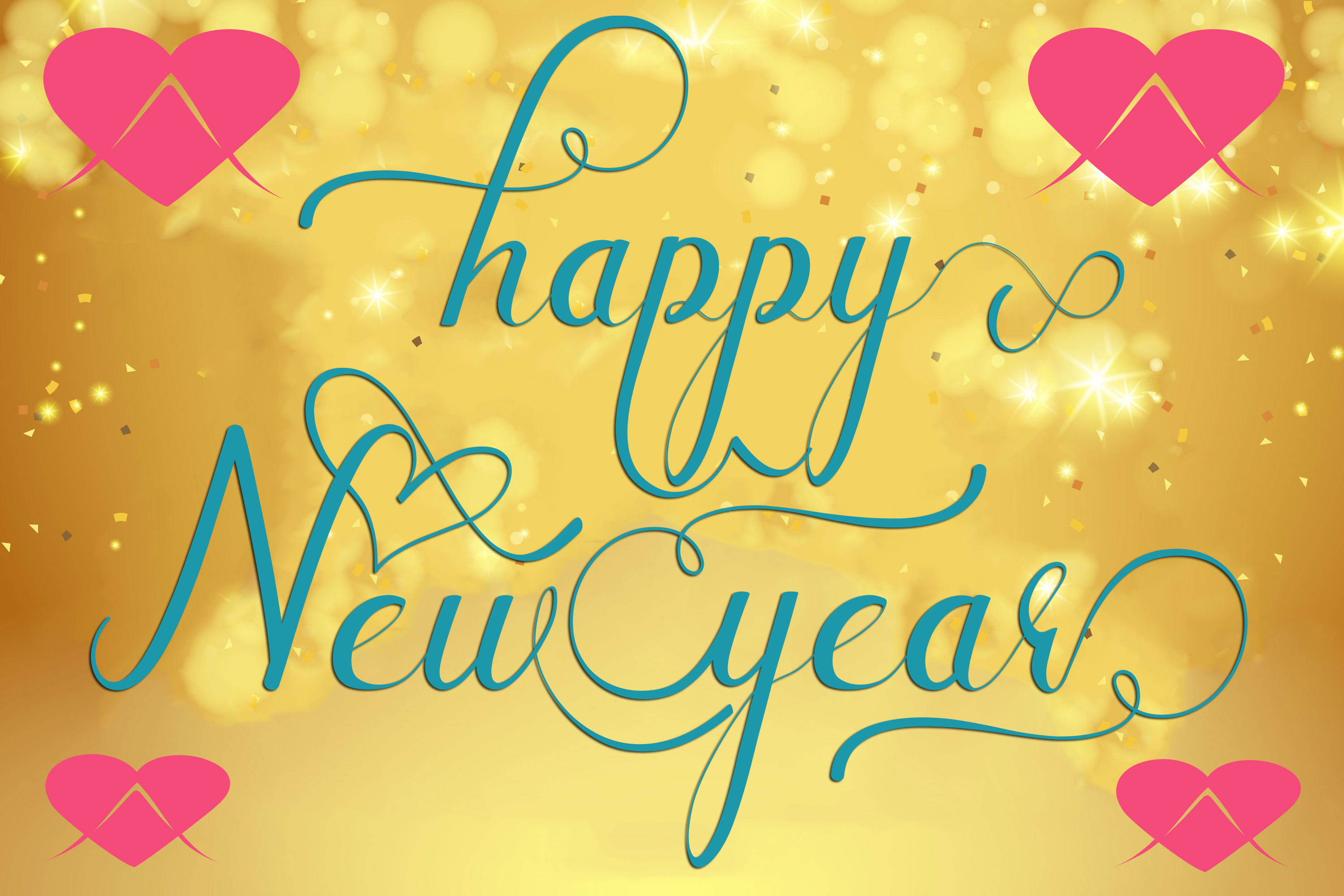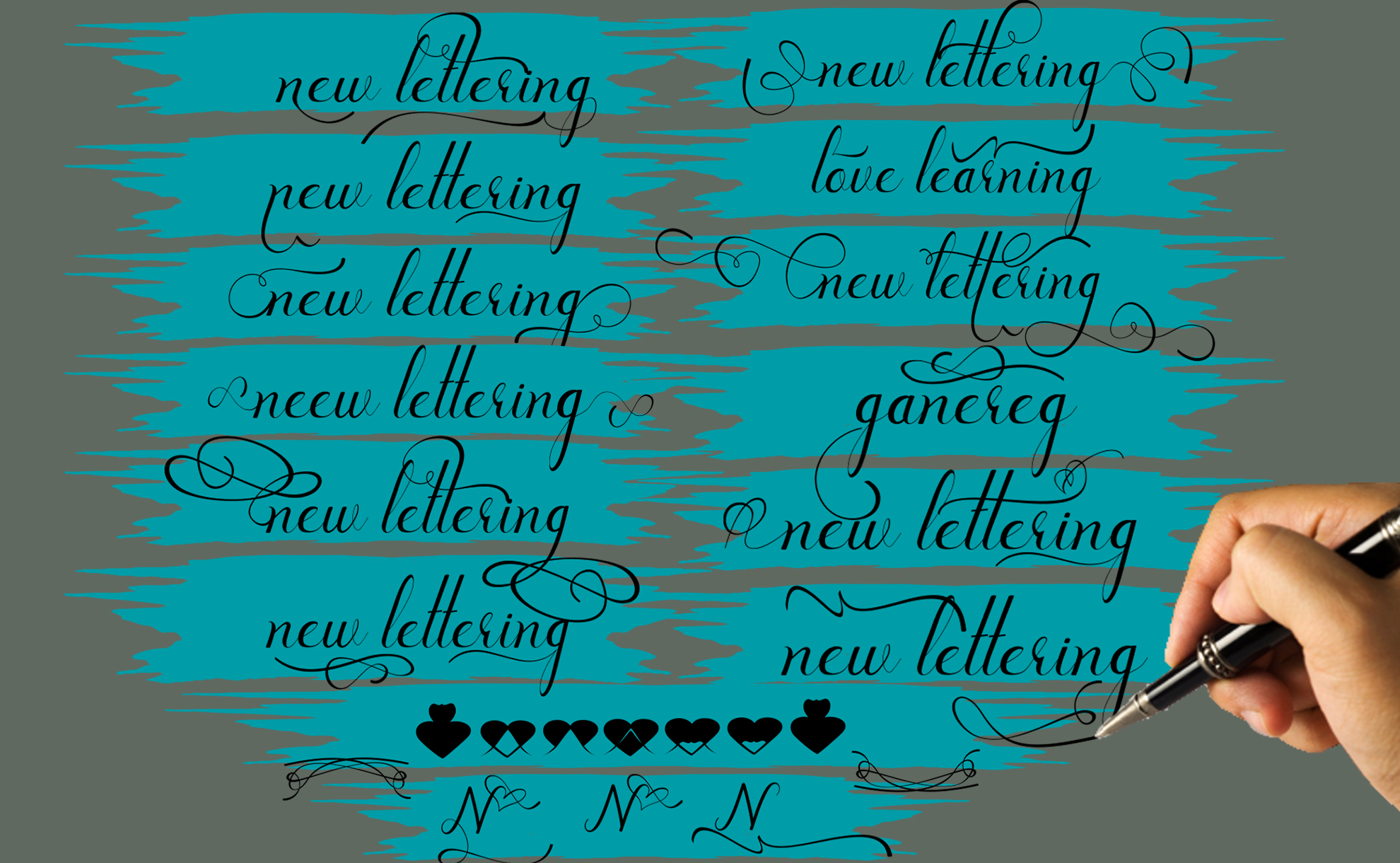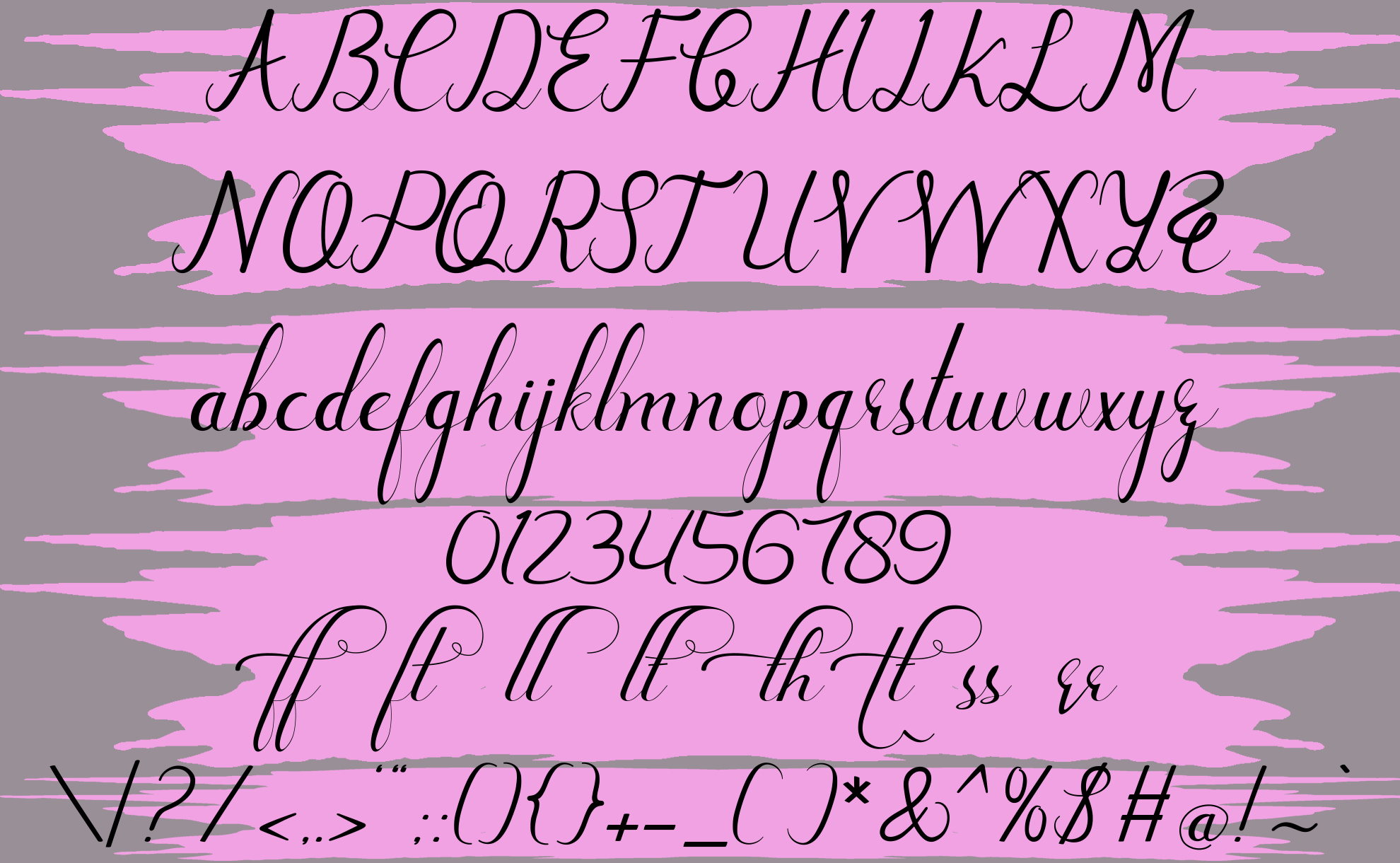
Introduction to New Lettering Font
As a designer, you’ve likely found yourself in the middle of a creative project, frantically searching for the perfect font to bring your vision to life. The struggle is real, but what if you stumbled upon a treasure trove of design resources that would make your job easier and more enjoyable? Enter the New Lettering Font, a stunning script that’s about to revolutionize the way you approach typography.
With over 1050 unique glyphs, this high-quality font is a game-changer for any design project. Whether you’re working on a logo, a poster, or a website, the New Lettering Font is sure to impress. Plus, its transparent background makes it a breeze to use in any application, giving you the freedom to experiment and push the boundaries of your creativity.
Key Features of New Lettering Font
- Unique, hand-crafted lettering style with a modern twist
- Perfect for branding, typography, and creative projects requiring a unique touch
Honest Review: New Lettering Font
I recently had the chance to try out the New Lettering Font, and I must say, it’s a great addition to any designer’s toolkit. The font itself is a high-quality design resource that offers a lot of versatility for creative projects.
What works well: ✨ The font’s sleek and modern design makes it perfect for a variety of applications, from logos to typography-based art. The transparent background option is also a nice touch, allowing for easy layering and customization. Additionally, the font is available for free download, making it an excellent choice for designers on a budget.
Here are some key features of the New Lettering Font:
- High-quality design with a modern aesthetic
- Transparent background option for easy customization
- Suitable for a variety of creative projects, including logos and typography-based art
What doesn’t work well: ⚠️ While the font is generally well-designed, I did find that it can be a bit tricky to use in certain situations, such as when layering multiple fonts or using it with complex designs.
Overall, I’m impressed with the New Lettering Font and would definitely recommend it to designers looking for a high-quality, free design resource. With a little practice and patience, I think it has the potential to become a go-to font for many creative projects.
The New Lettering Font is ideal for creating invitations, posters, and social media graphics. Its high-quality features make it perfect for use in professional designs, and its transparent background option allows for seamless integration with other design elements.